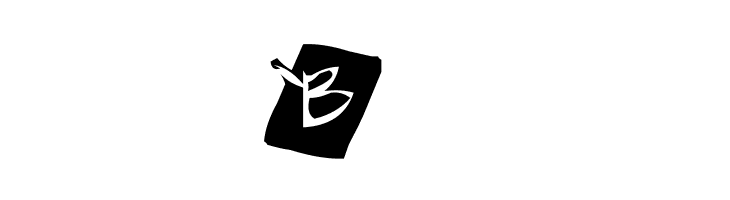
A playful, chalkboard-style font with bold, hand-drawn letters in tilted squares.
A decorative font with a lighthouse motif integrated into each letter, ideal for nautical themes.
A bold, whimsical font with bee illustrations atop each character.
A bold, hand-painted style font with expressive, uneven strokes.
A playful, hand-drawn design featuring cute bunny illustrations.
A playful, monster-themed decorative font with bold, quirky characters.
A bold, hand-drawn font with an expressive and dynamic style.
A dingbat font with classic toy illustrations.
A decorative font with characters inside lace-bordered hearts, offering a playful and romantic style.
A whimsical font with black cat silhouettes integrated into each character.
Recent favorites include AEZ chalkboard, AEZ seascape, AEZ buzz buzz, AEZ curly Q and AEZ bunnies. They balance clarity and personality, working well for tech brands, editorial layouts, and social visuals.